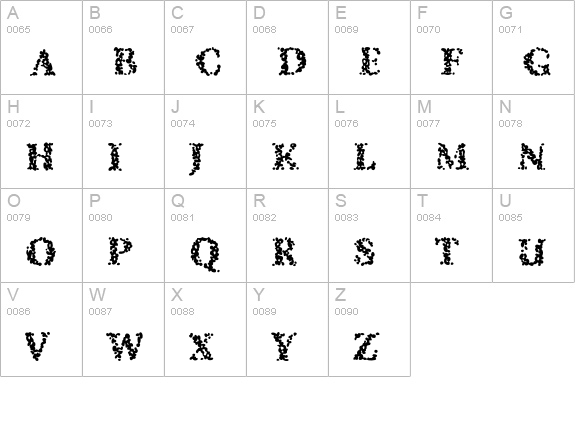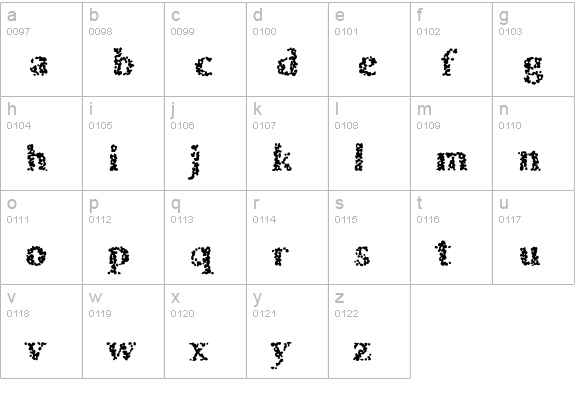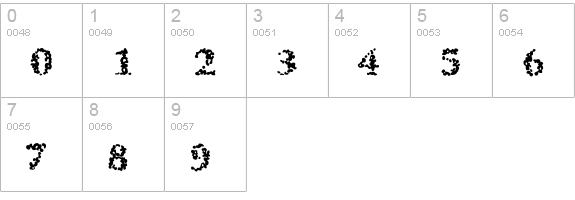
SibleyPotatoBaked Font Details
Introducing SibleyPotatoBaked, a delightful and whimsical font that will add a touch of playfulness to any design project. This unique typeface is perfect for adding a friendly and inviting feel to your creations, whether it be a logo, packaging, or social media graphics. SibleyPotatoBaked features a hand-drawn style, with charmingly irregular lines that give it a homemade and organic appeal. Its slightly rounded edges and playful curves make it visually appealing and easy on the eyes, ensuring that your message will be conveyed with warmth and approachability. This font is not only visually captivating but also incredibly versatile. It can be used in a variety of contexts, from children's book illustrations to food packaging designs and beyond. Its ability to evoke a sense of joy and lightheartedness makes it a perfect choice for any project that aims to engage and captivate its audience. One of the best things about SibleyPotatoBaked is that it is freely available to download at FontsMarket.com. This means that you can easily access and use this delightful font without any hassle. Whether you're a professional designer or a hobbyist, this font allows you to bring your creative visions to life without breaking the bank. So why wait? Embrace the whimsy and charm that SibleyPotatoBaked brings to the table and elevate your designs to a whole new level. Download this delightful font today and let your imagination run wild!